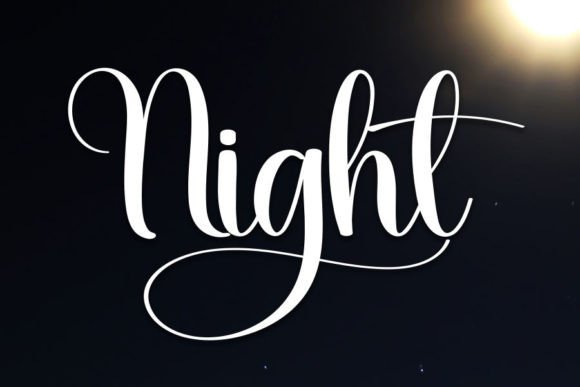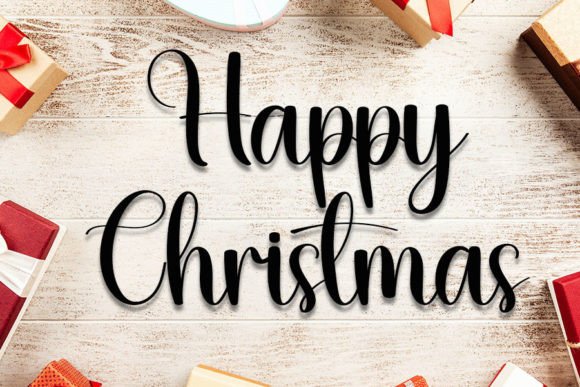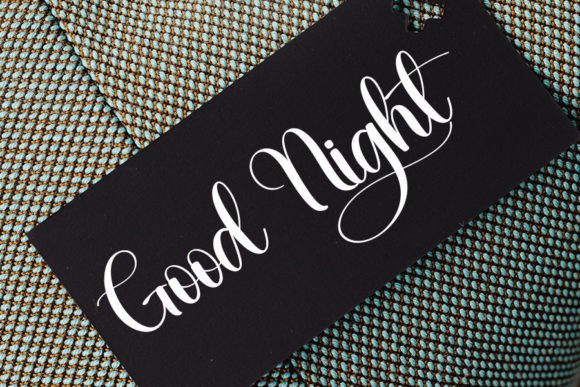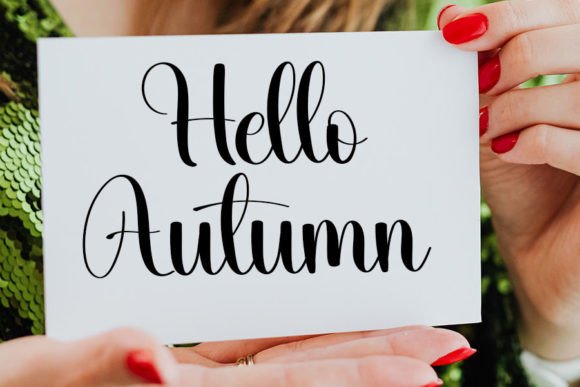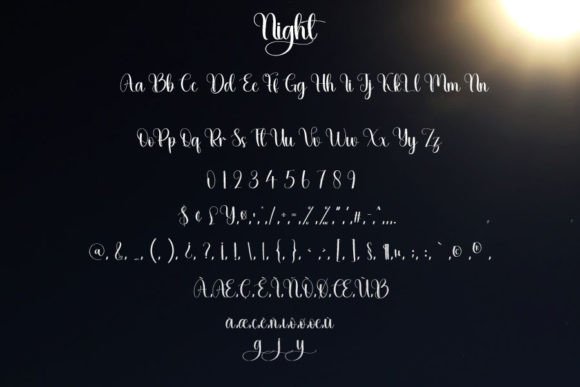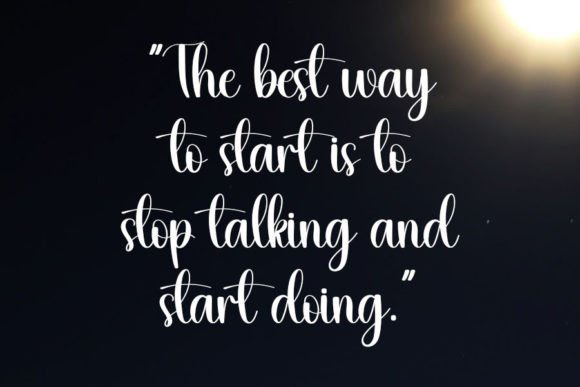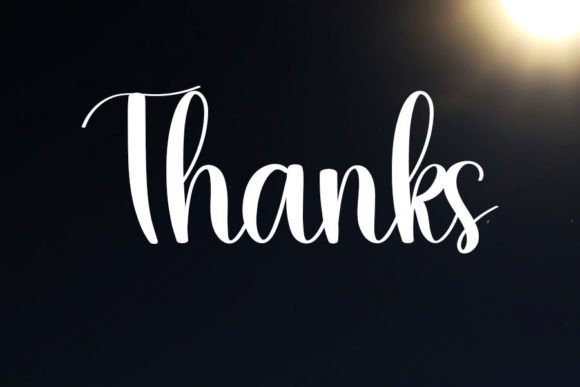
Night Font
About Night Font
Night font is a simple yet charming handwritten typeface designed to bring warmth and personality to your creative projects. When you download Night font, you gain a versatile and friendly script that can become your favorite choice for various design needs. Its approachable style makes it ideal for both professional and casual applications.
Perfect for Crafts and DIY Projects
This font shines in craft designs, offering an authentic handwritten look that enhances DIY projects. Whether you’re creating personalized greeting cards or unique handmade items, Night font adds a delightful, human touch. Download Night font and elevate your crafts with its friendly and natural style.
Great for Digital Design and Presentations
Night font’s clean and readable characters make it perfect for digital design tasks. It works beautifully in presentations, social media graphics, and web content where clarity and style matter. By downloading Nightfont, you ensure your digital projects stand out with a warm and inviting vibe.
Ideal for Greeting Cards and Invitations
Nightfont is excellent for creating greeting cards and invitations for any occasion. Its simplicity and friendliness make your messages feel more personal and heartfelt. Download Nightfont to add an elegant yet approachable handwritten style to your cards and invites.